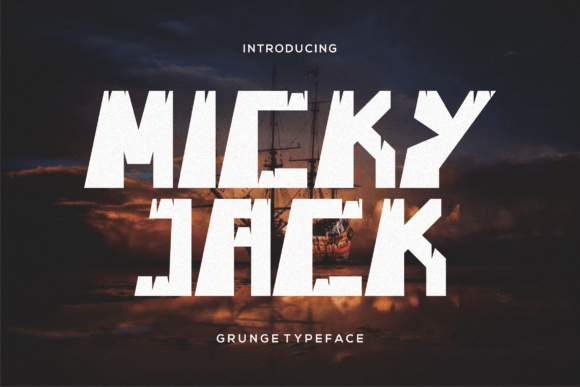
Introducing Micky Jack Font, the Boldest and Grungiest Display Font for Modern Logos
Unlock the secret to creating unforgettable logos that leave a lasting impression. Introducing Micky Jack, a bold and grunge display font that will transform your designs into captivating masterpieces. Inspired by the raw energy of urban street art, Micky Jack exudes a rebellious spirit that will make your logos stand out from the crowd.
With its unapologetically edgy character, Micky Jack is perfect for businesses that want to make a statement. Whether you're a designer creating logos for clients or a business owner looking to create a brand identity that resonates with your audience, Micky Jack is the font that will take your designs to the next level.
But don't just take our word for it. Here's a glimpse into the world of possibilities that Micky Jack opens up:
- **Unleash Your Creativity:** Micky Jack is a font that empowers you to express your creativity without limits. Its bold and grunge aesthetic lends itself perfectly to creating logos that are both eye-catching and memorable. Whether you're designing logos for fashion brands, music labels, or extreme sports companies, Micky Jack will give your designs the edge they need to stand out.
- **Craft Logos With Impact:** Make a statement with logos that pack a punch. Micky Jack's bold and grunge style will ensure that your logos command attention and create a lasting impression. Perfect for businesses that want to convey a sense of power, confidence, and authority, Micky Jack will elevate your brand to new heights.
- **Create Logos That Resonate:** Connect with your audience on an emotional level through logos that speak to their hearts. Micky Jack's rebellious spirit and edgy aesthetic will appeal to those who are bold, adventurous, and unafraid to break the mold. Whether you're designing logos for streetwear brands, motorcycle clubs, or tattoo parlors, Micky Jack will help you create logos that resonate with your target audience.
- **A Font for All Occasions:** Micky Jack's versatility knows no bounds. While it excels in creating modern logos, its bold and grunge style also lends itself to a wide range of other design projects. Create eye-catching posters for music events, design edgy T-shirts for street fashion brands, or add a touch of rebellion to your social media graphics. With Micky Jack, the possibilities are endless.